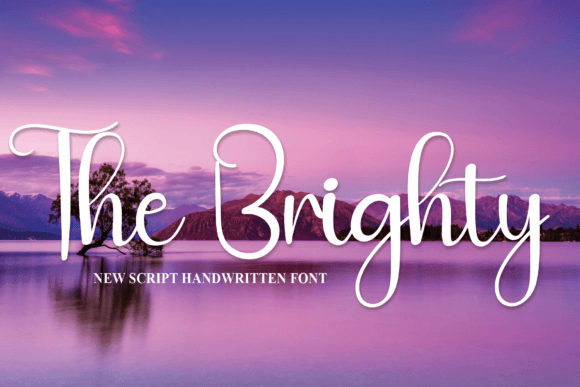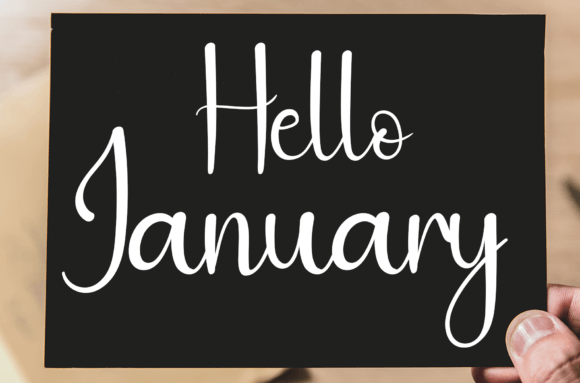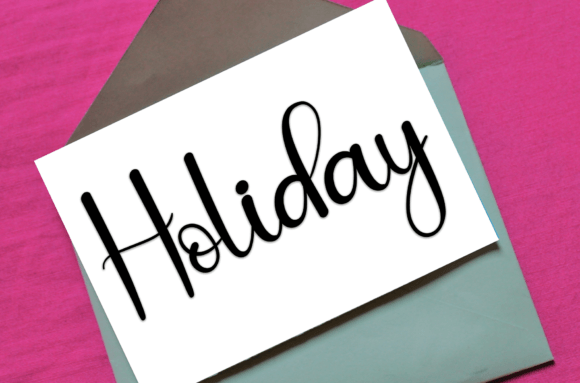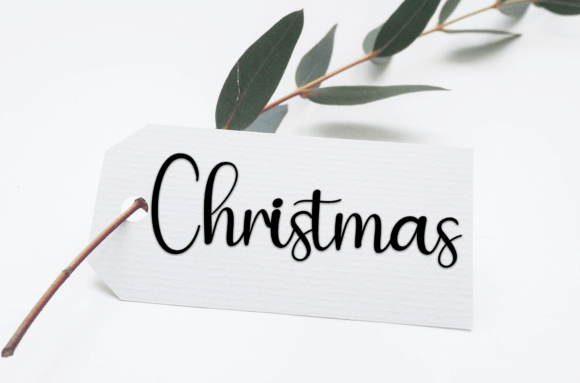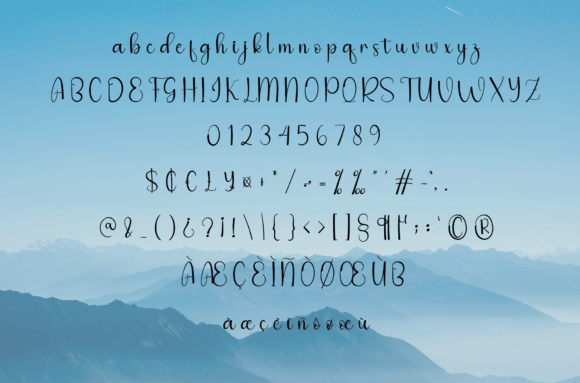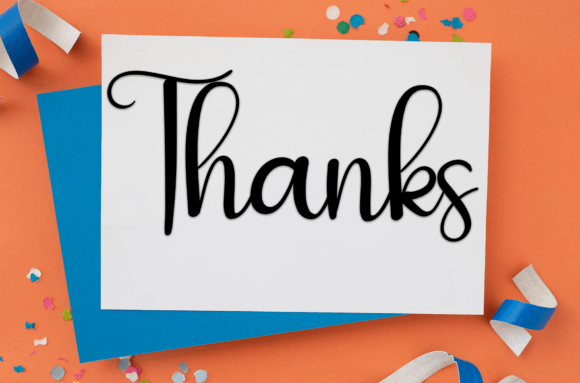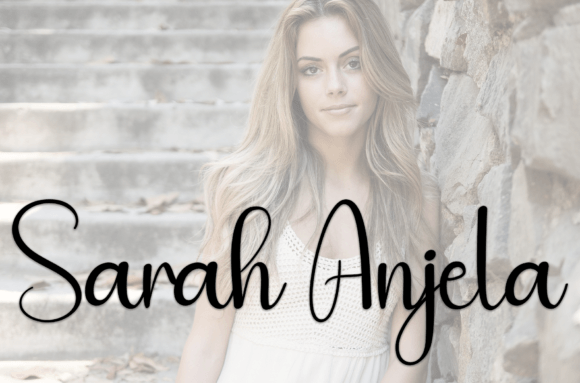
The Brighty Font
About The Brighty Font
The Brighty is a sweet and friendly handwritten font that brings joy, warmth, and a charming personality to your designs. With its soft strokes and casual style, this font feels like a handwritten note from a dear friend. Whether you’re designing wedding invitations, greeting cards, logos, or packaging for handmade goods, The Brighty adds an authentic and heartfelt touch.
Crafted to feel personal and approachable, this font mimics real handwriting while maintaining a smooth, clean finish. It’s perfect for creatives who want to bring sincerity and beauty into their visual projects without sacrificing readability or style. If you’re looking for a font that’s as cheerful as it is elegant, The Brighty is the perfect choice.
Add a Touch of Light and Love
The Brighty captures the essence of friendliness. Its rounded shapes and soft curves make every word feel personal and genuine. This makes it ideal for romantic projects, cheerful brand designs, or heartfelt messages. It fits just as well in a whimsical mood board as it does in a professional logo for a boutique brand.
From the first glance, The Brighty draws you in with its ease and elegance. The spacing and balance between letters are finely tuned to look natural and flow beautifully in any layout.
Where to Use The Brighty Font
The Brighty is versatile and suitable for many types of creative work, including:
• Wedding Invitations & Save-the-Dates – Give your special day a romantic and personal feel
• Greeting Cards – Perfect for holidays, birthdays, thank-you cards, and more
• Branding & Packaging – Especially for handmade, artisanal, or lifestyle products
• Social Media Graphics – Add a relaxed and emotional tone to Instagram quotes or Pinterest pins
• Craft Projects – Great for planners, stickers, scrapbooks, or Cricut projects
• Blog Titles or Headers – Bring a welcoming vibe to your site
• Elegant and casual handwritten look
• Uppercase and lowercase characters
• Smooth and consistent strokes
• Multilingual support
Why Choose The Brighty?
Designers love The Brighty for its versatility and its balance of charm and clarity. Whether you’re creating a heartfelt message, soft branding, or crafting something purely for fun, this font adds a human touch that audiences instantly connect with. It’s not too formal, not too childish—just perfectly sweet and stylish.
From romantic event stationery to cute product labels, The Brighty delivers every time. Its handwritten look feels fresh and timeless, making it a great asset for your design toolkit.